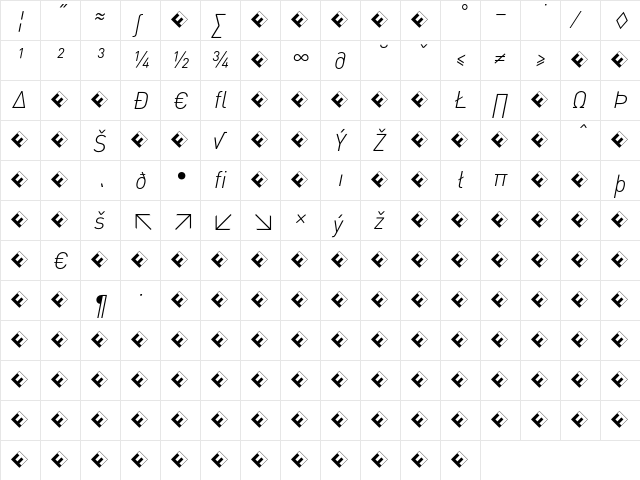
DIN-LightItalicExp Regular
Design Context for DIN-LightItalicExp Typeface
DIN-LightItalicExp offers clean, dependable letterforms without strong stylistic allegiance, making it a practical choice for designers who need flexibility. The dynamic lean of this cut emphasises speed and emphasis in any layout. Its slender proportions lend an understated elegance to any composition.
Pro Tip: Use DIN-LightItalicExp for emphasis, pull quotes, and subheadings where its slanted energy can add rhythm to the layout.